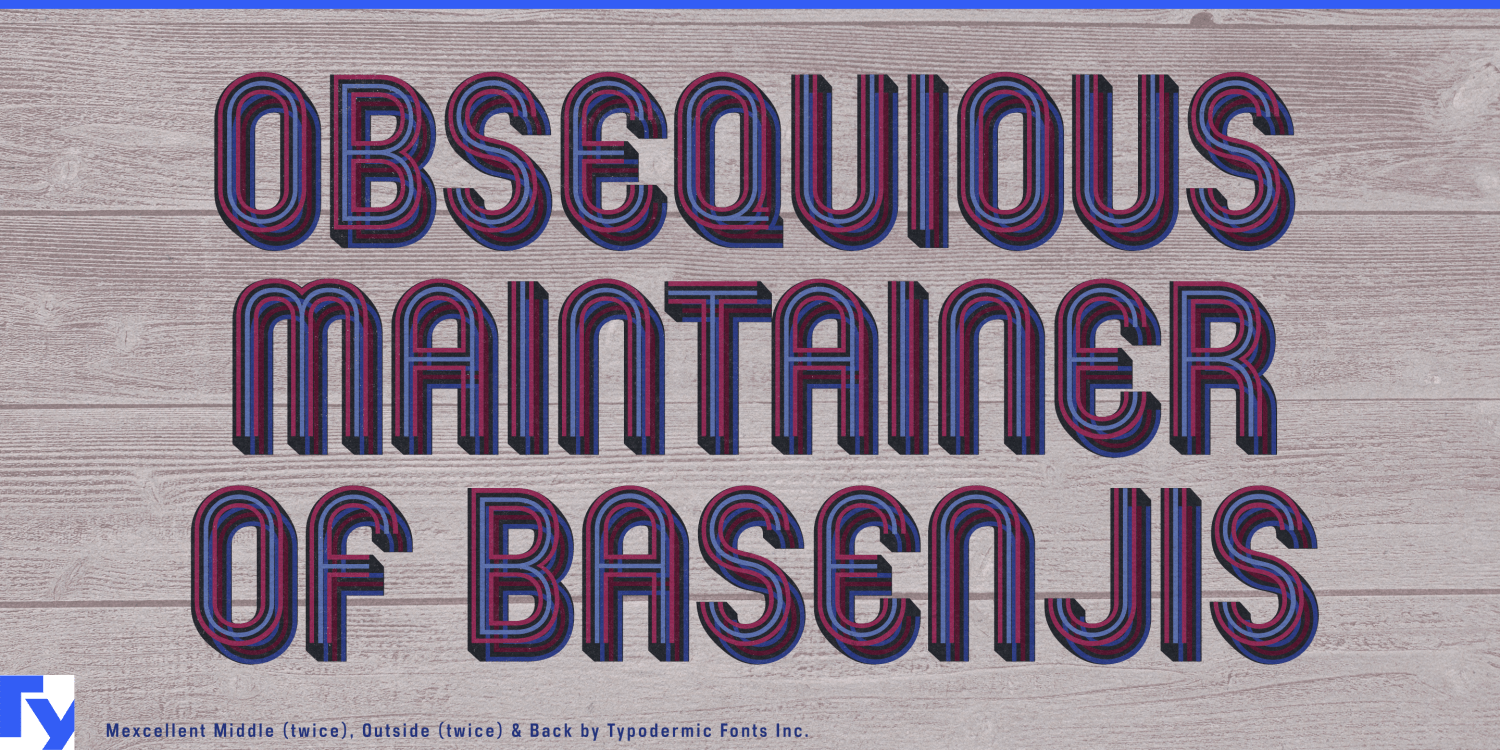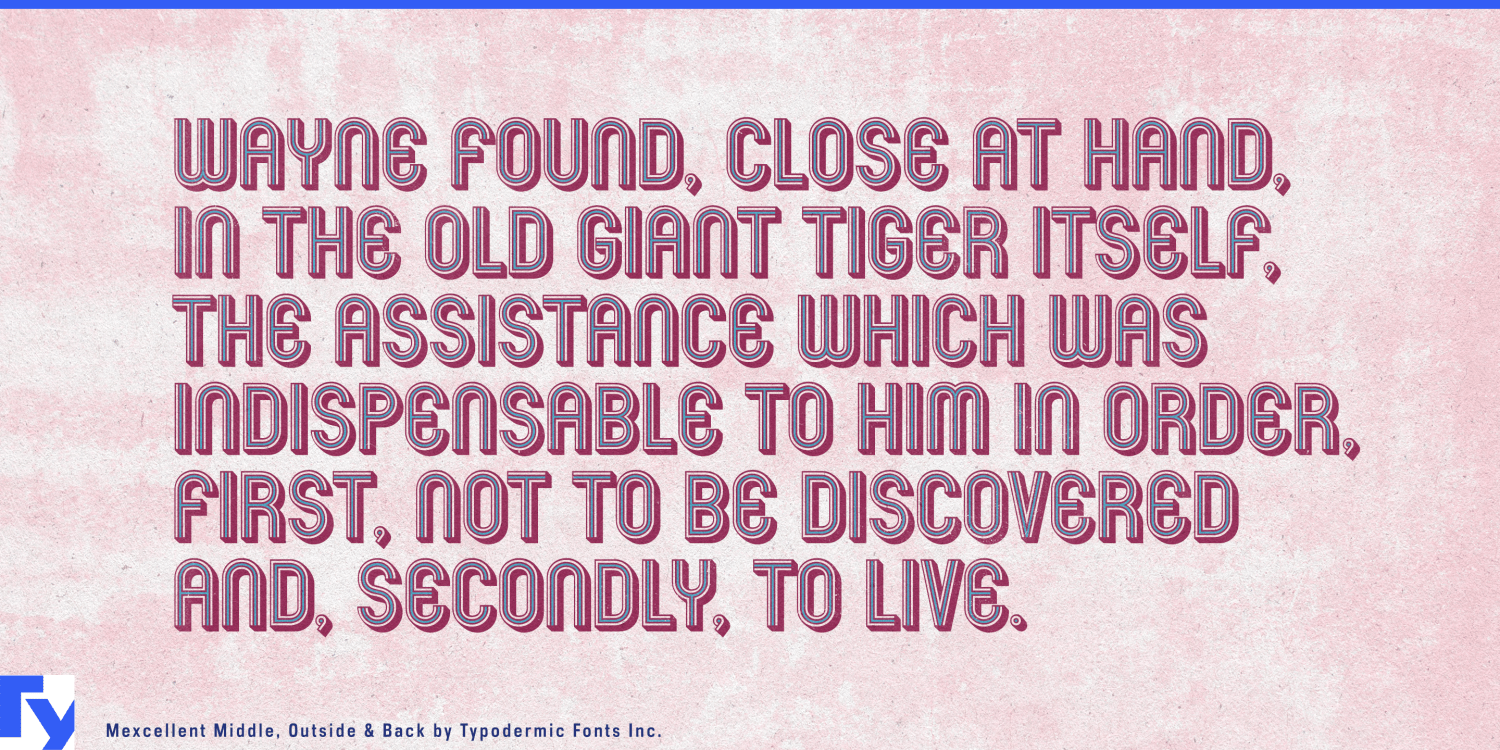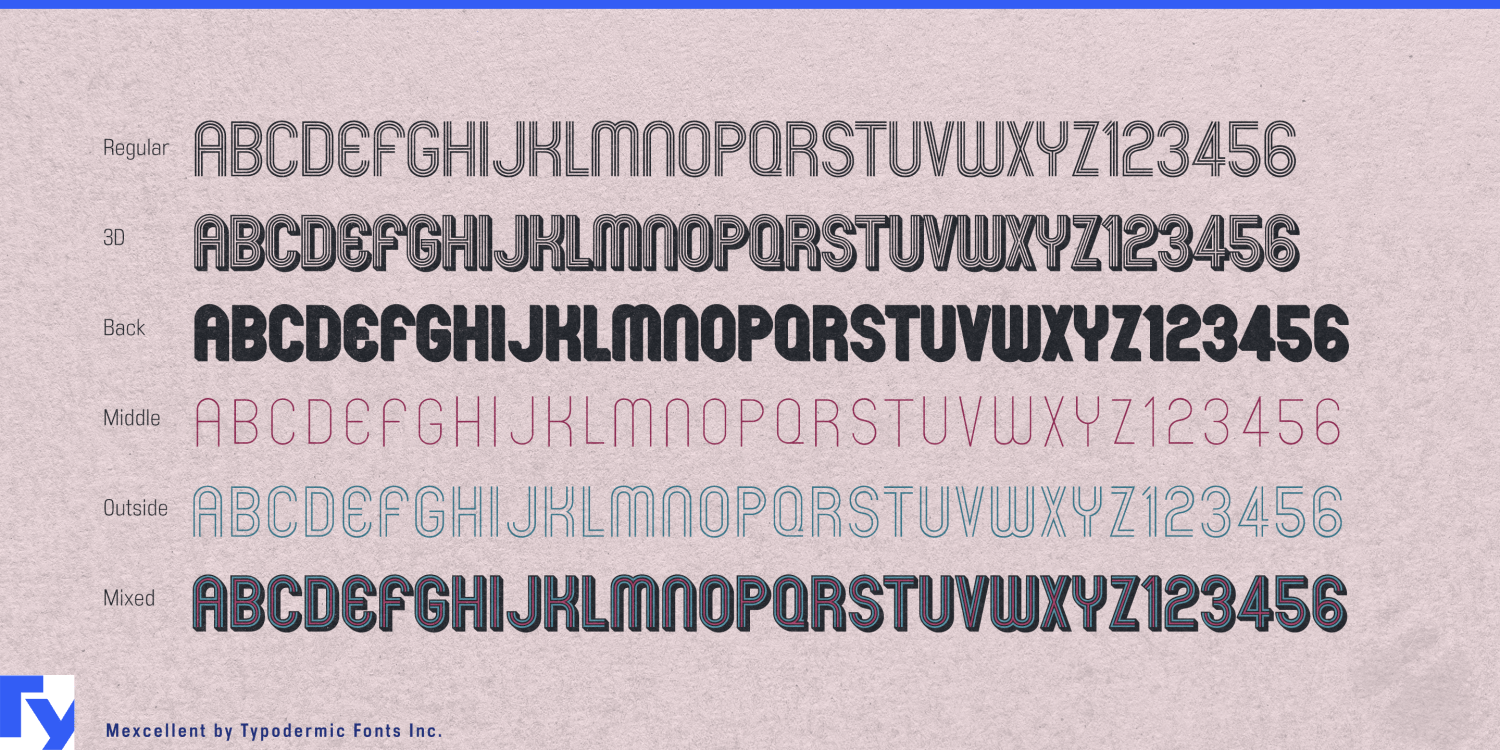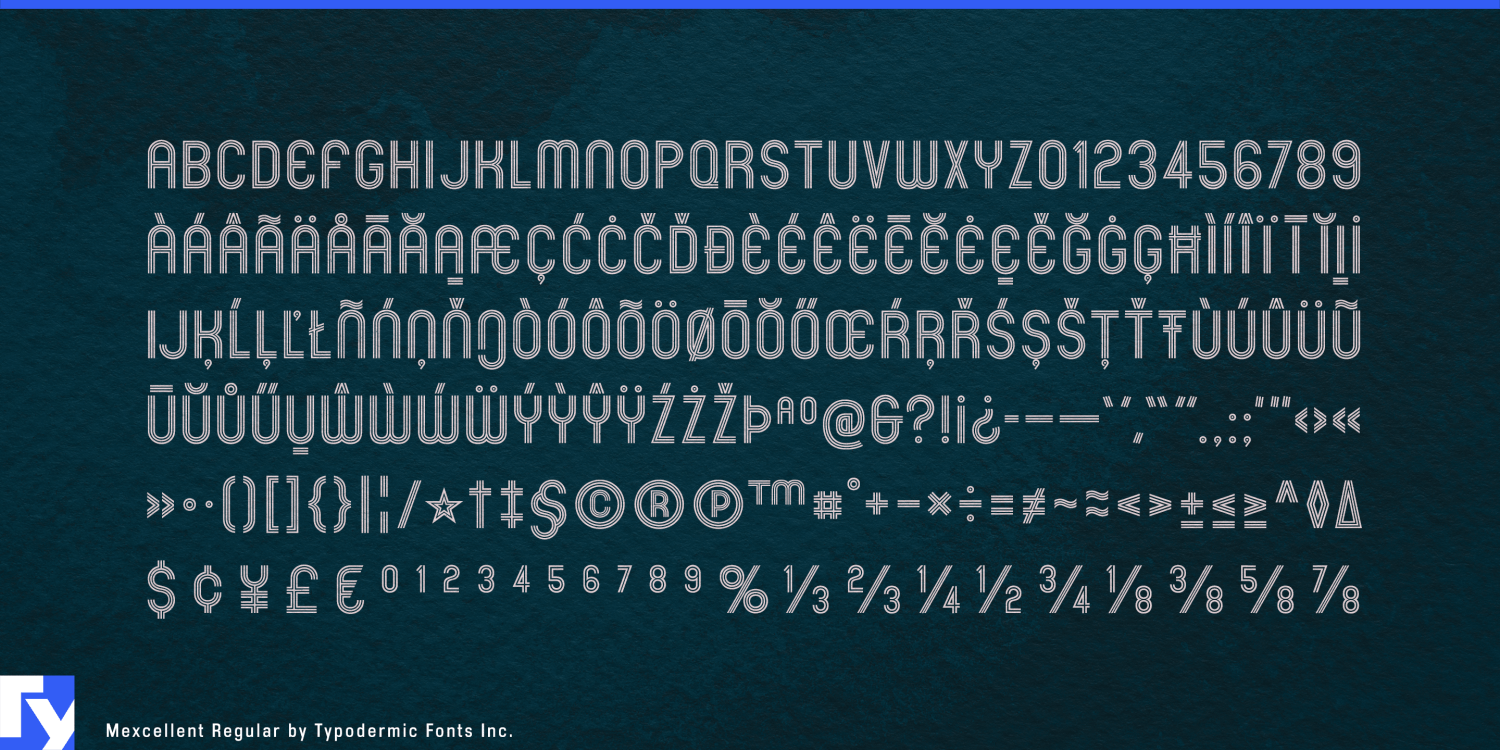
Welcome to the world of Mexcellent, a tri-linear stripe typeface that is sure to add a touch of jubilation to your designs! Inspired by the custom font created for the iconic 1968 Mexico City Olympic Games, this font will transport you to a world of vibrant…